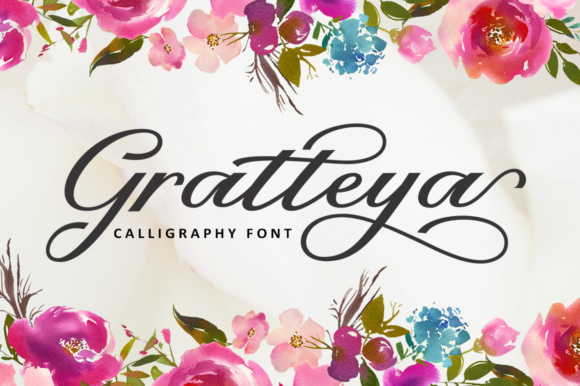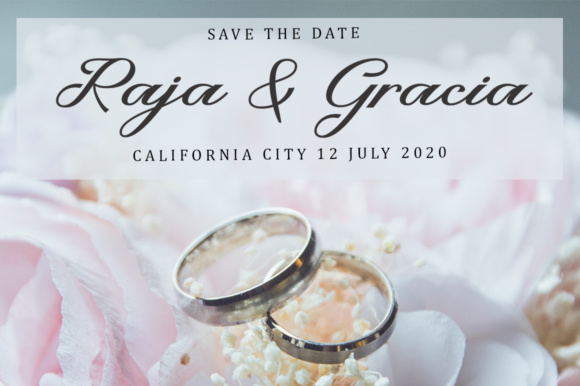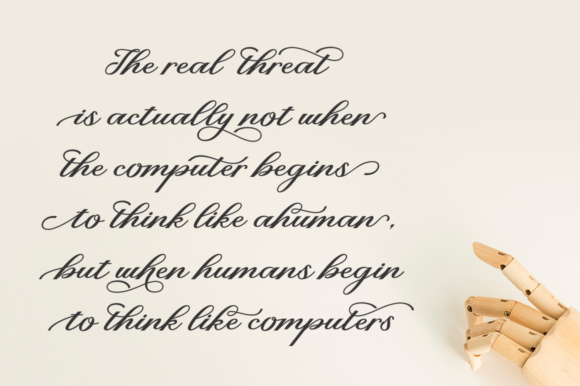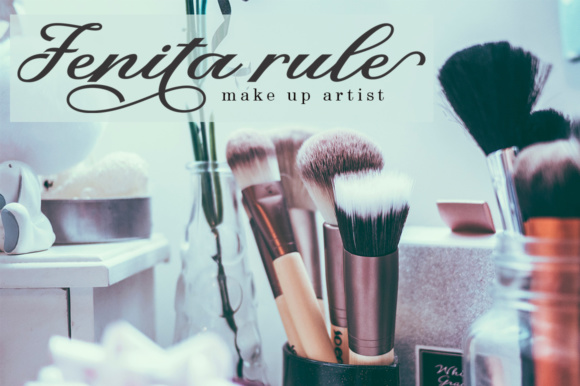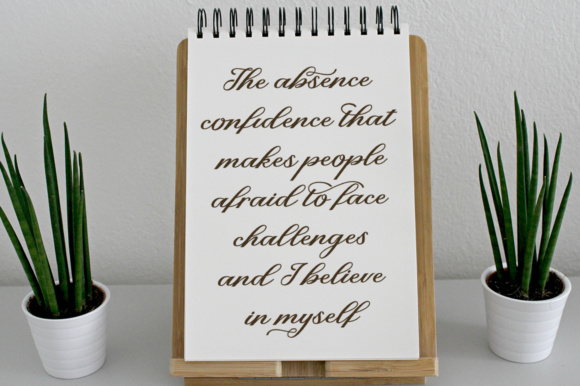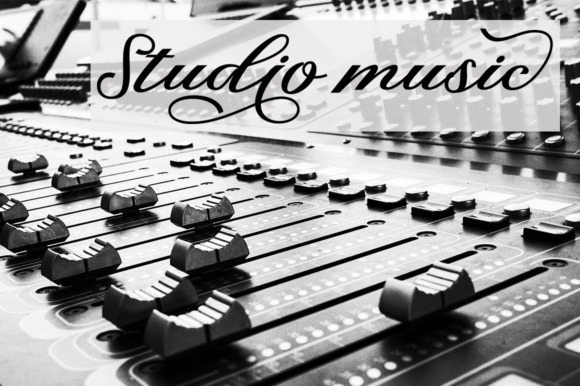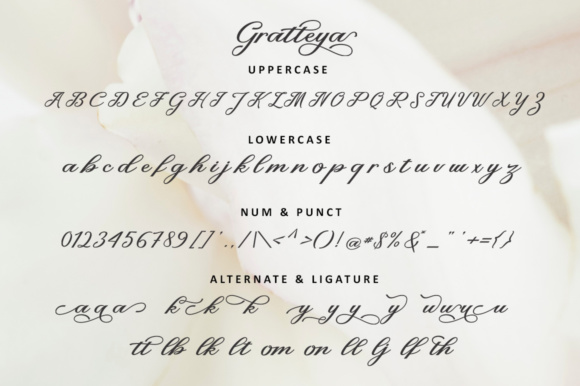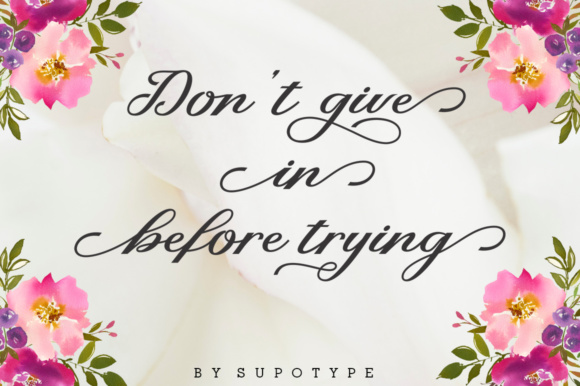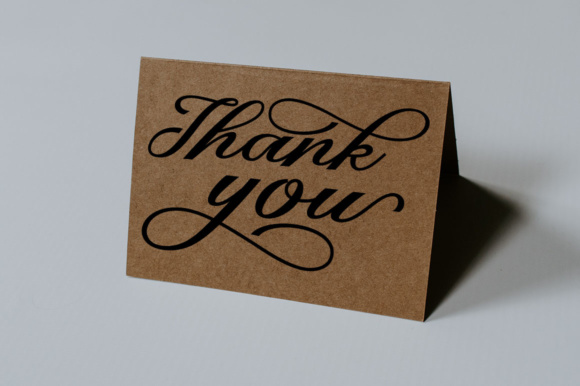
Gratteya Script Font
About Gratteya Script Font
The Gratteya is a sweet calligraphy font. It has an elegant style with a dynamic baseline. It’s easy to use, perfect for branding, logos, greeting cards, weddings, quotes, and much more!